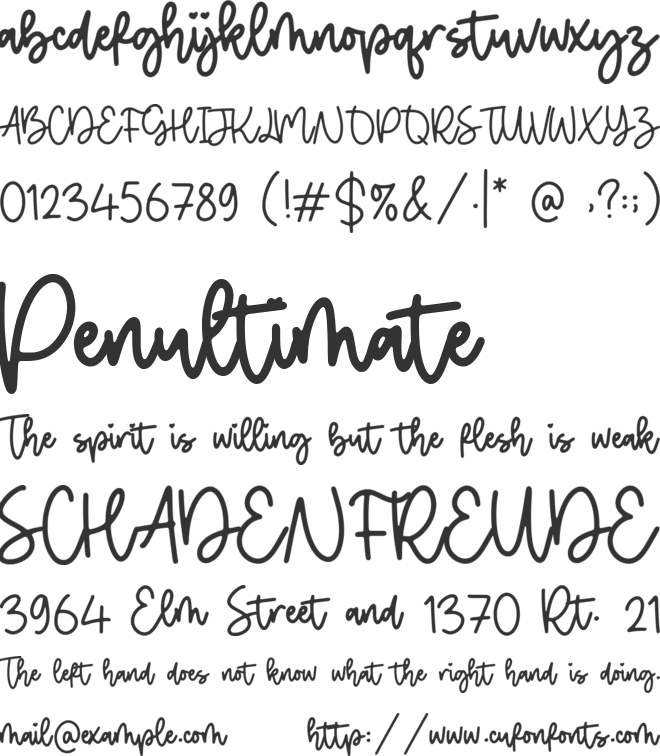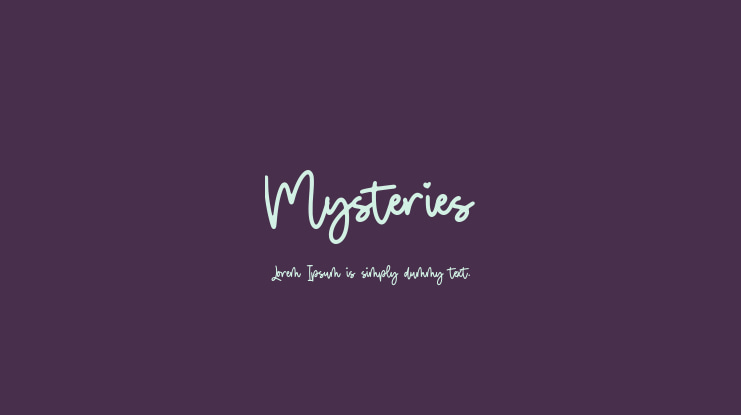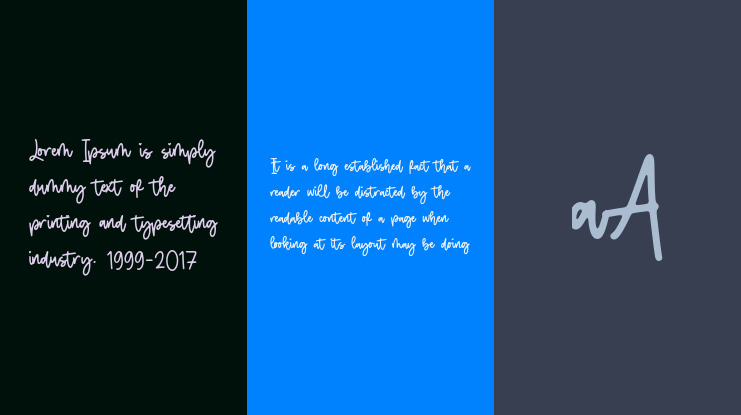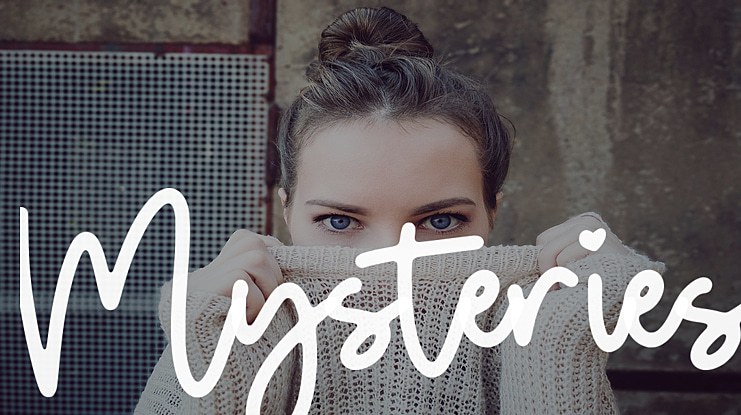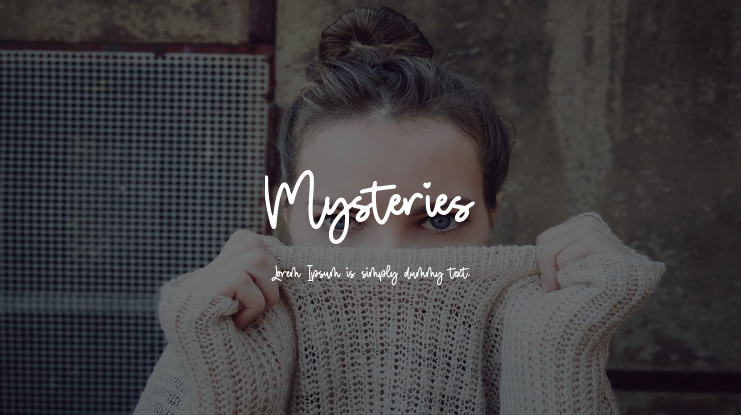
Mysteries Font
Introducing by Balpirick Studio.
Proudly Present, Mysteries Font.
Mysteries is a Modern Monoline Font.
Mysteries is perfect for product packaging, branding project, megazine, social media, wedding, or just used to express words above the background.